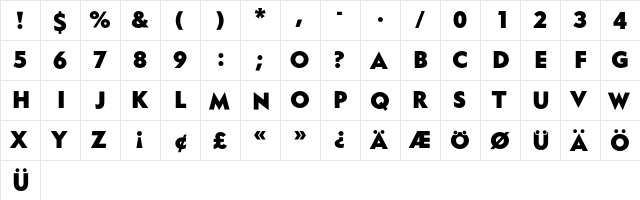
Nivea Bold
Design Context for Nivea Typeface
Nivea takes a measured approach to typography — its balanced proportions and neutral character make it a reliable workhorse for both digital and print work. Its bold stroke weight gives it real presence on the page.